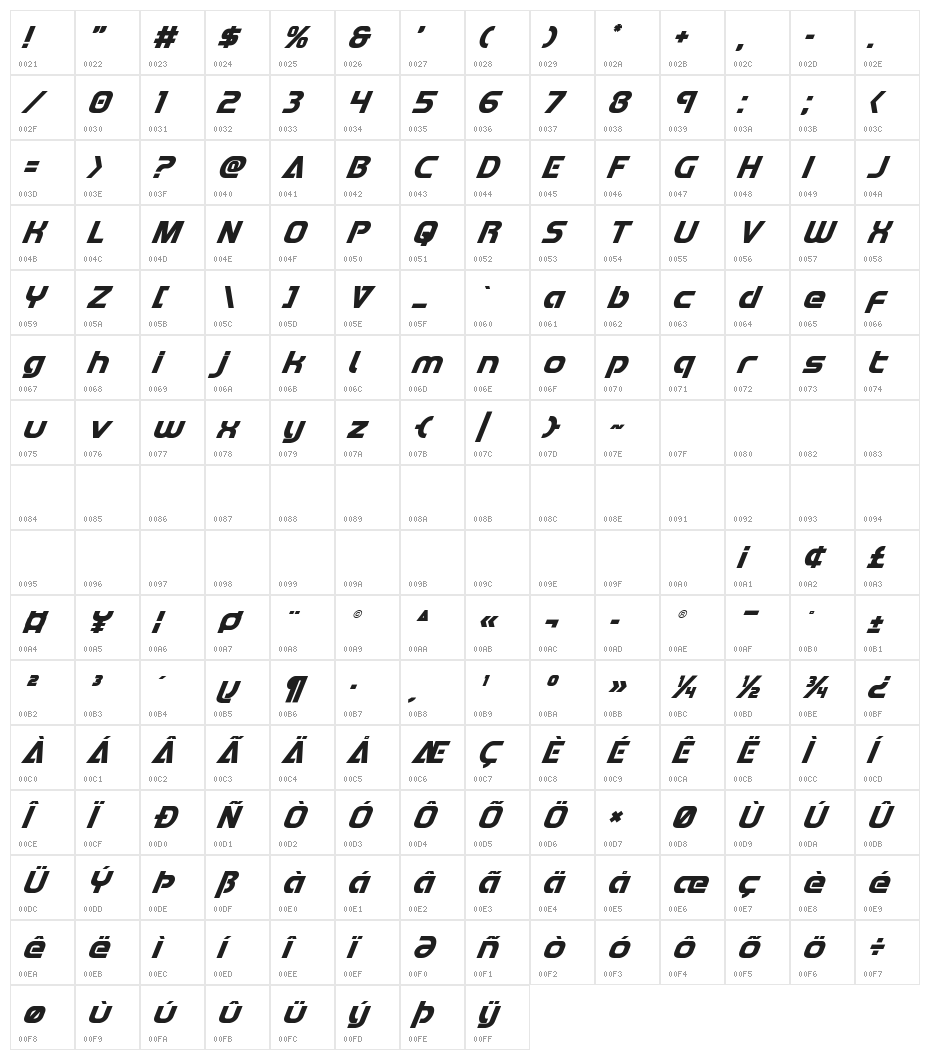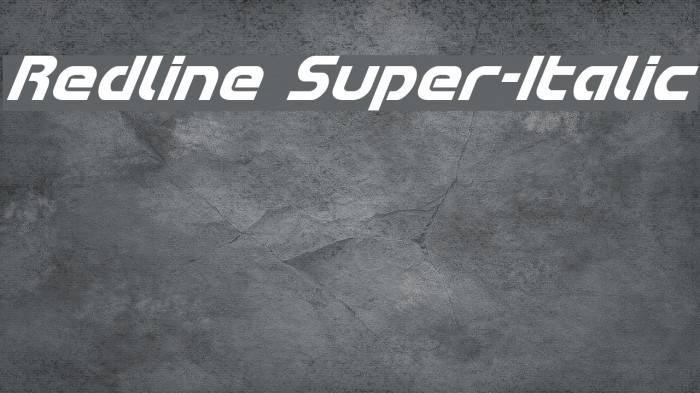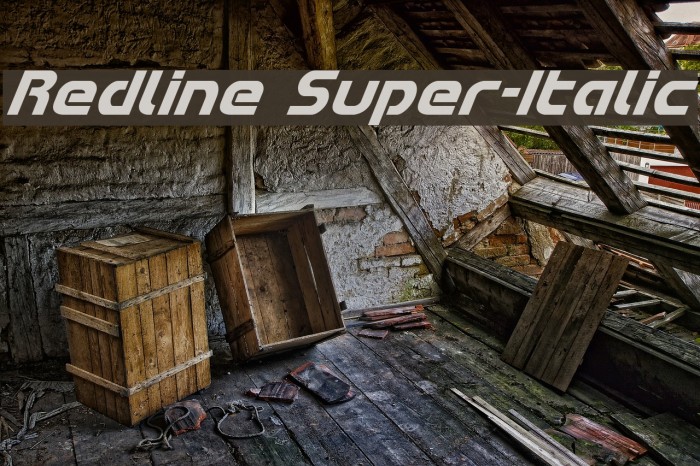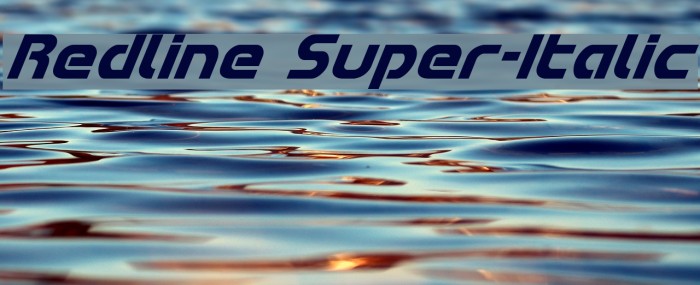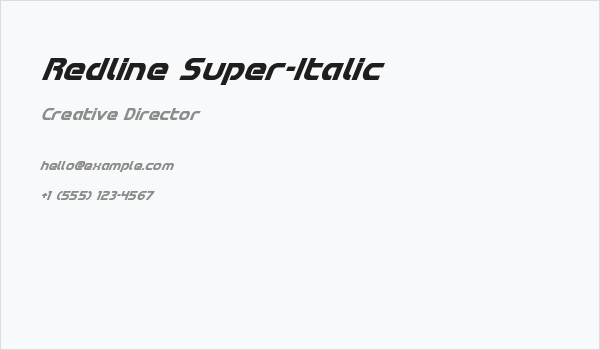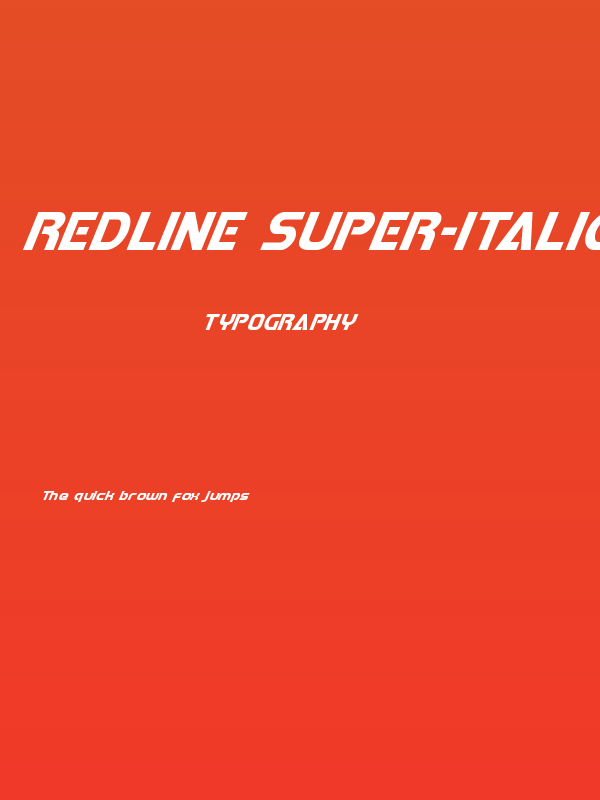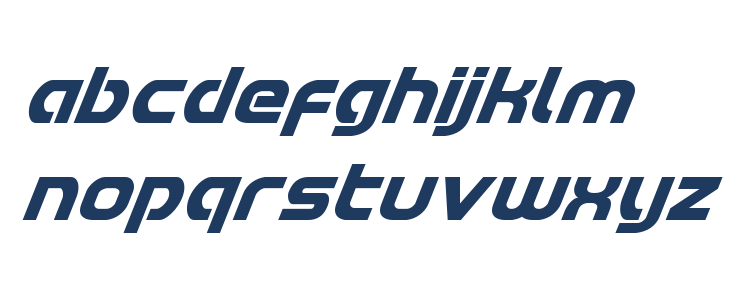
Redline Super-Italic Font
Redline Super-Italic Description
This font features a dynamic and modern italic style, characterized by its sharp angles and streamlined appearance. The letters are slightly slanted, giving a sense of motion and speed, which is further emphasized by the bold and thick strokes. The font maintains a consistent weight throughout, providing a strong and impactful presence. The characters are closely spaced, enhancing the compact and cohesive look. This style is ideal for projects that require a contemporary and energetic feel, such as sports branding, automotive designs, or tech-related materials.
| Proposed Projects | Ideal for sports branding, automotive designs, tech-related materials, and dynamic advertising. |